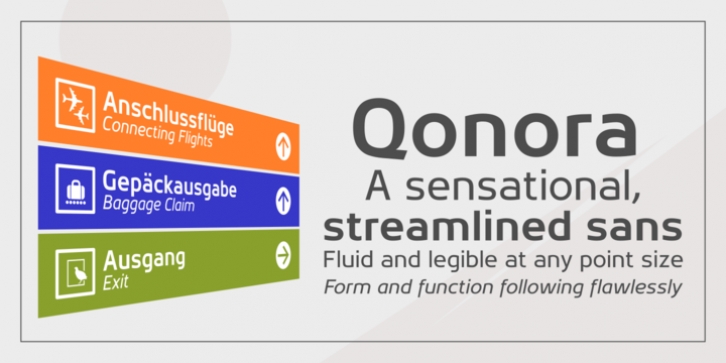
Qonora was designed by Charles Casimiro and published by Charles Casimiro Design. Qonora contains 4 styles and family package options.
Qonora is an innovative new sans-serif text face that combines flowing, almost calligraphic strokes with a post-modern sensibility for a look that works as well on the printed page as it does on screen. Its comfortable proportions and no-nonsense streamlining (note the lack of spurs, serifs or any unnecessary ornamentation) make it an excellent choice for legibility even at very small point sizes.
Qonora includes a true italic, drawn independently from the Roman. Strokes for the italic have been re-weighted to complement the Roman, and idiosyncratic italic glyphs have been substituted where appropriate.
The typeface's extensive Hebrew implementation (including diacritics and cantillation marks) is an important part of its character. The Latin, Cyrillic and Greek ranges of the face maintain a consistent ethic of form and function.